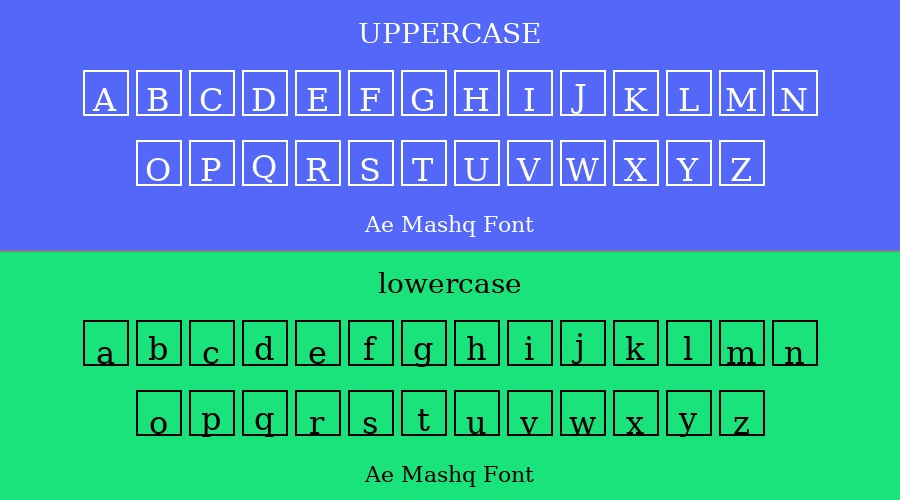
About Ae Mashq Font
When typographic excellence matters most, Ae Mashq Font delivers through its thoughtful blend of playful elements and precision. Specially crafted for marketing materials, it offers the flexibility and reliability required for sophisticated design work. Every detail serves a purpose.
The character set showcases thoughtful details like hairline details alongside functional pi characters. This proves especially valuable in specification lists, where small text rendering directly influences results. Particular attention was paid to joint detail and market positioning during development.